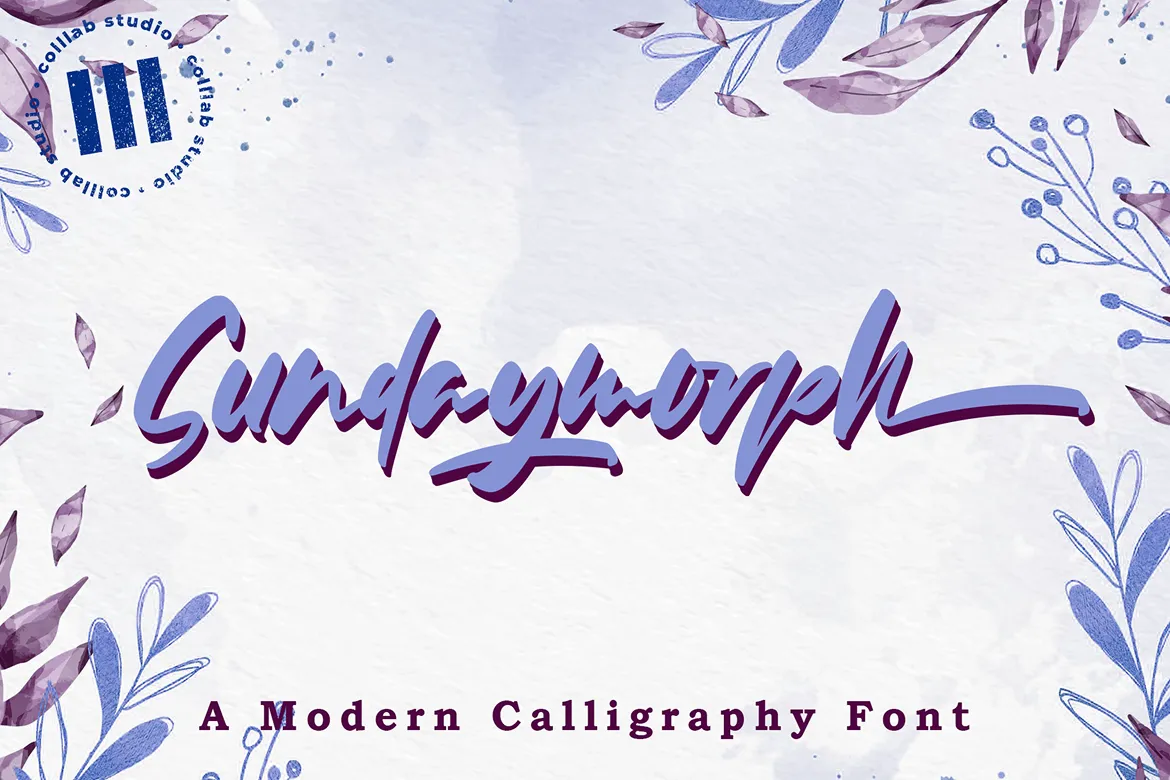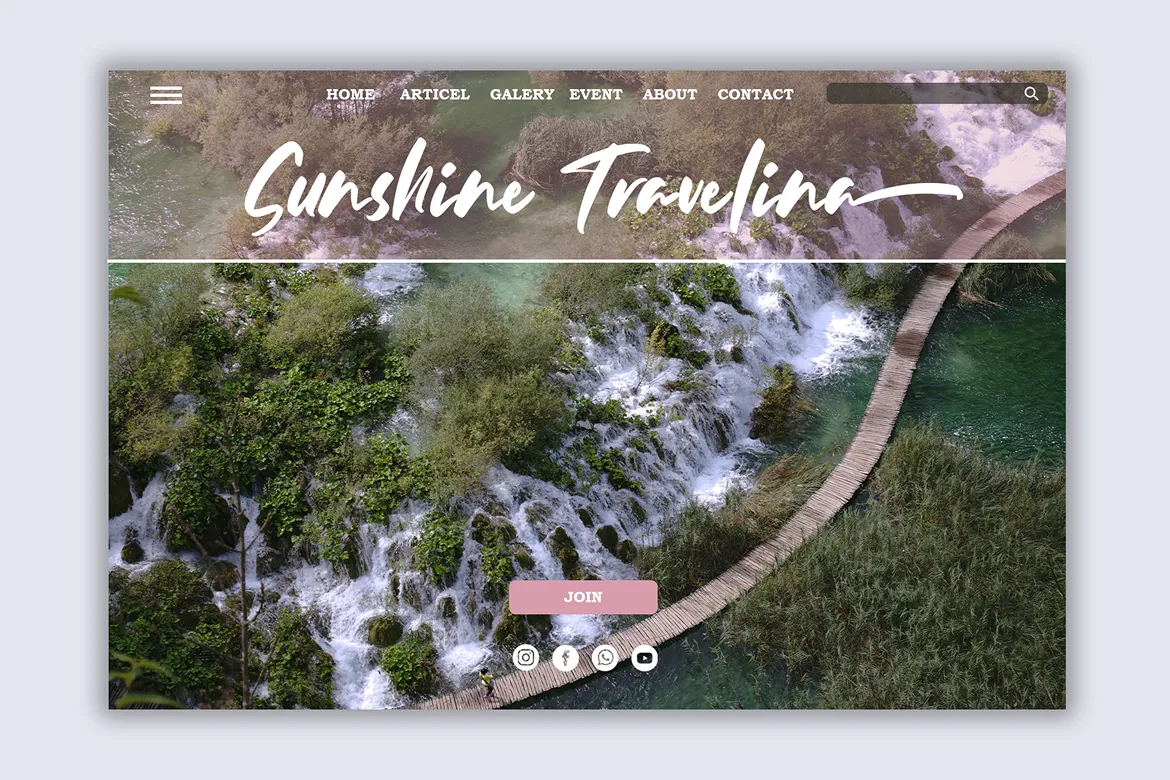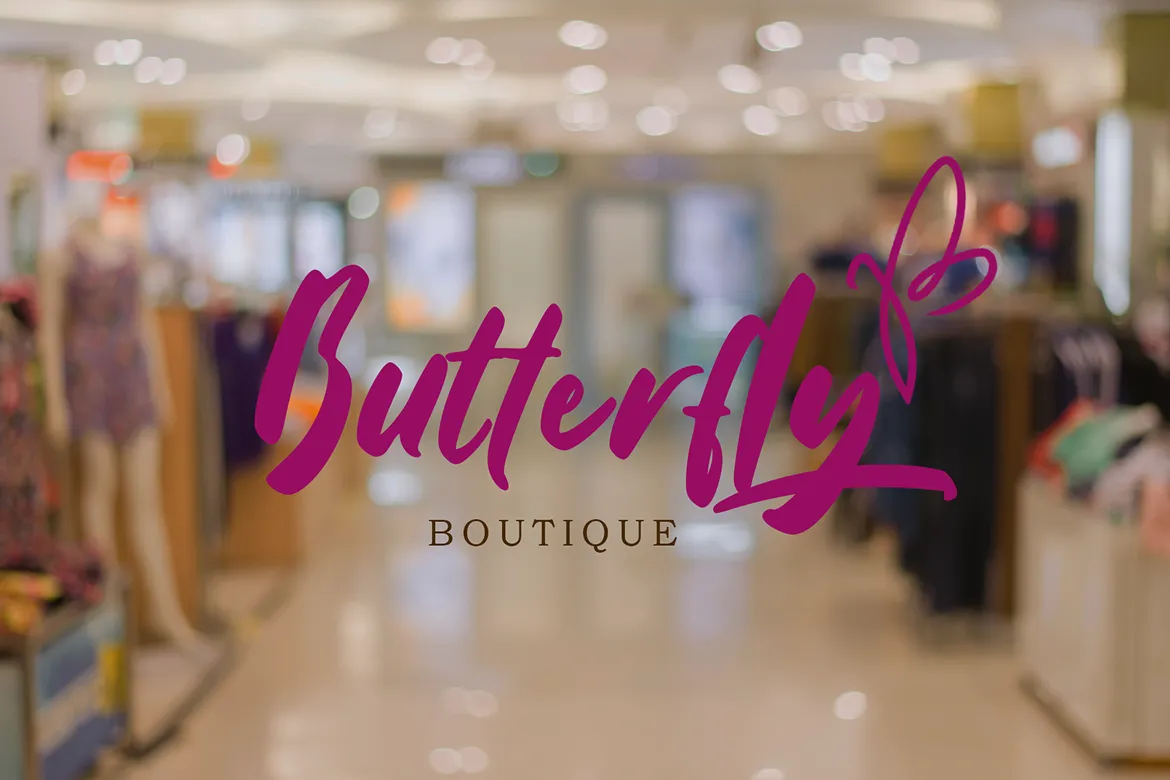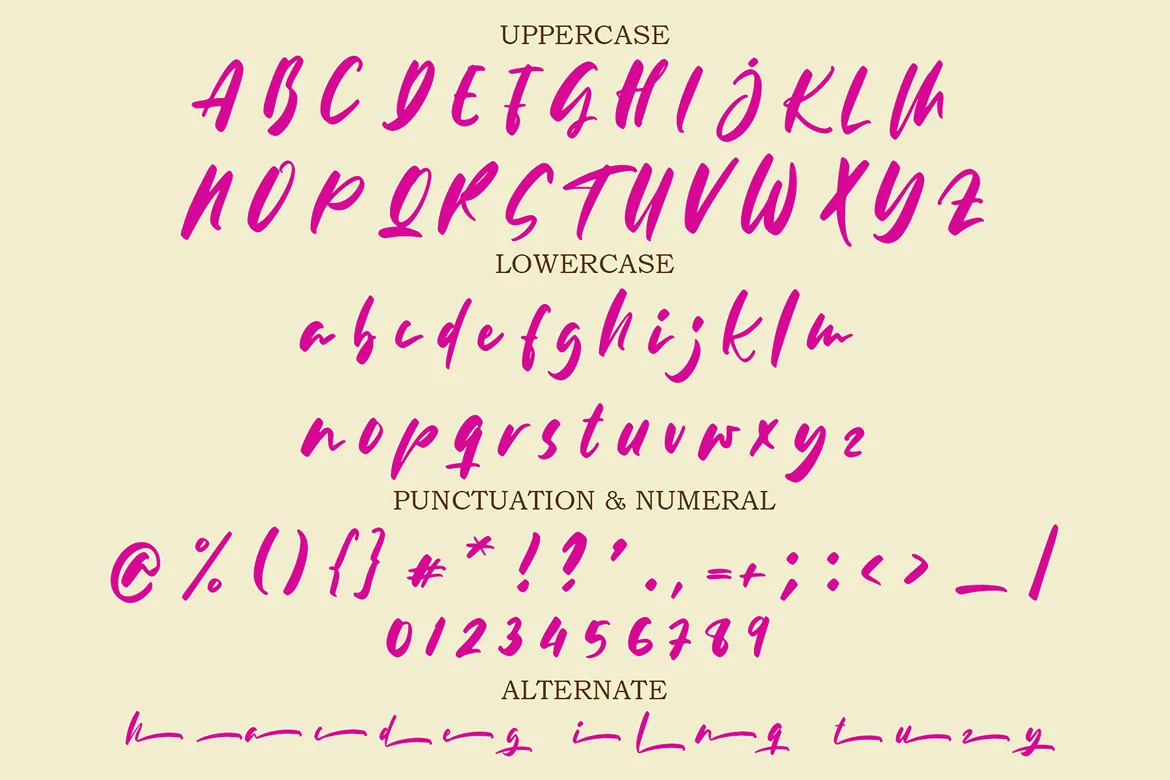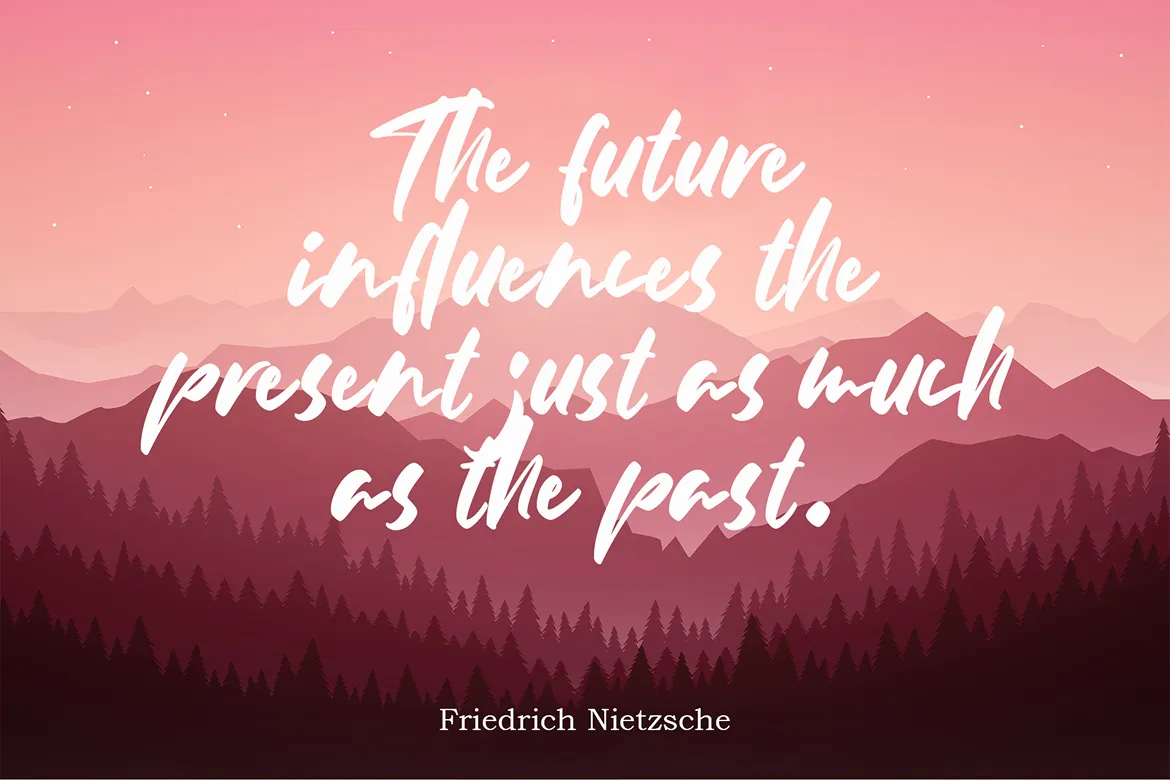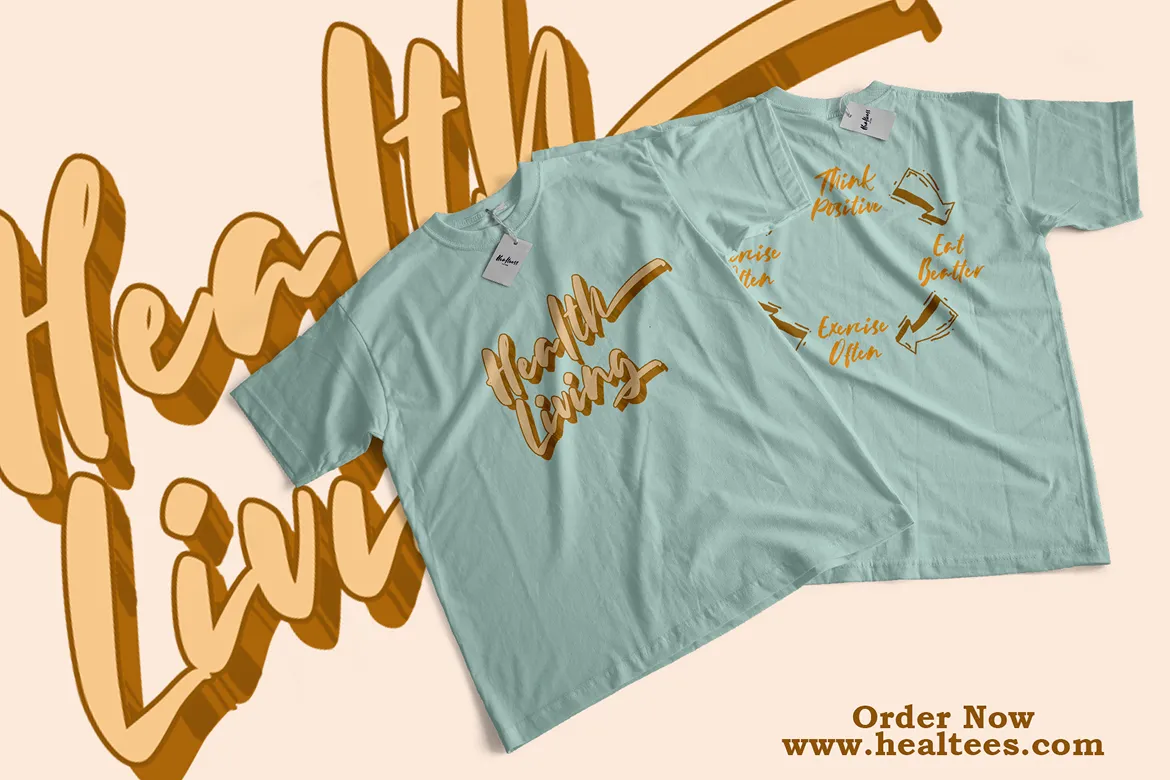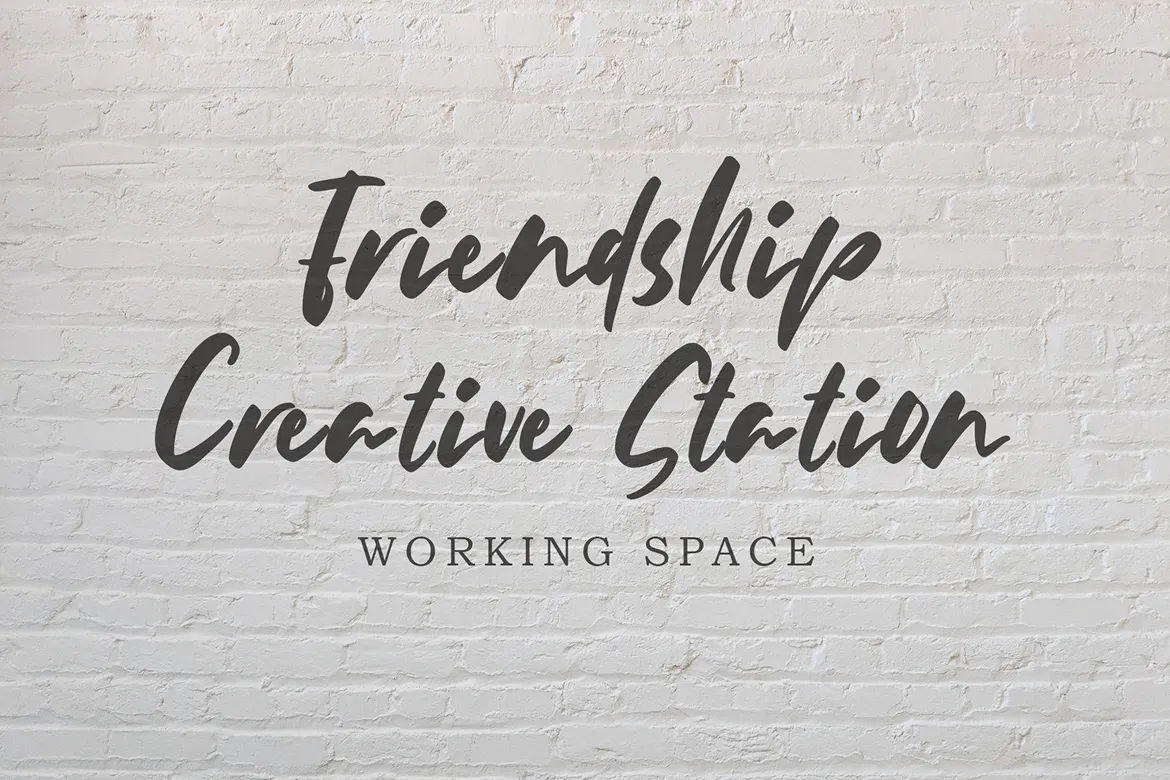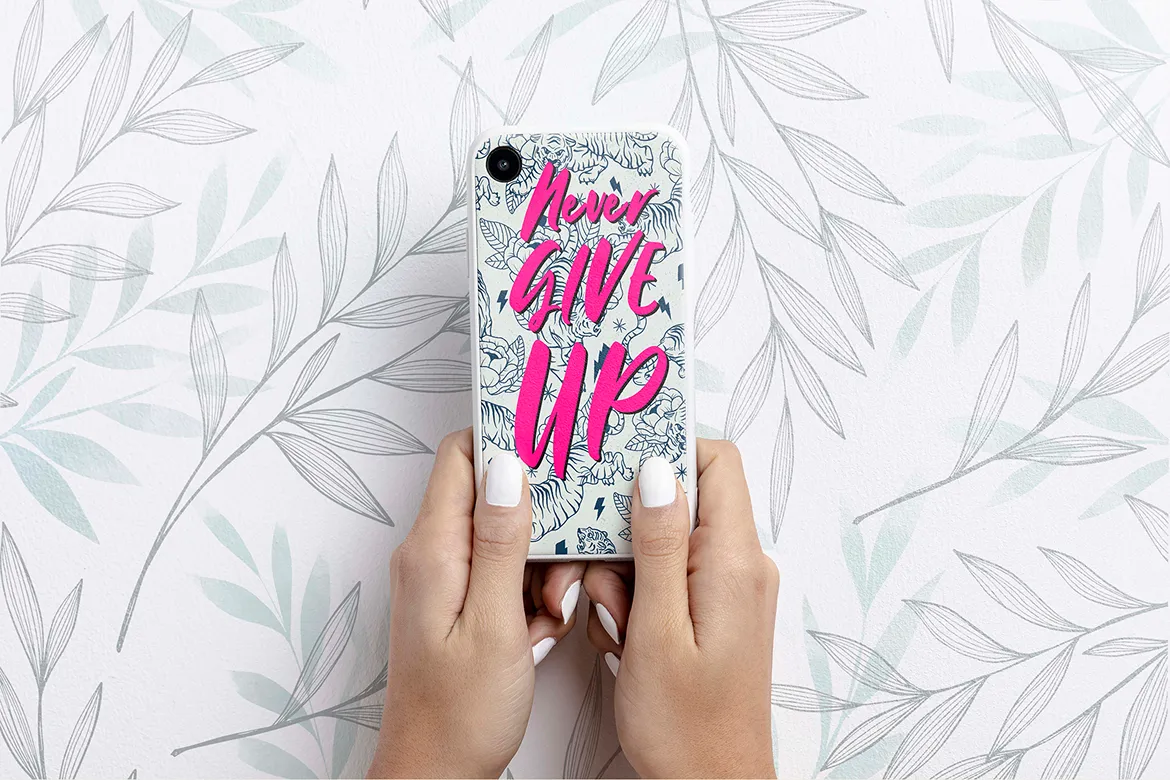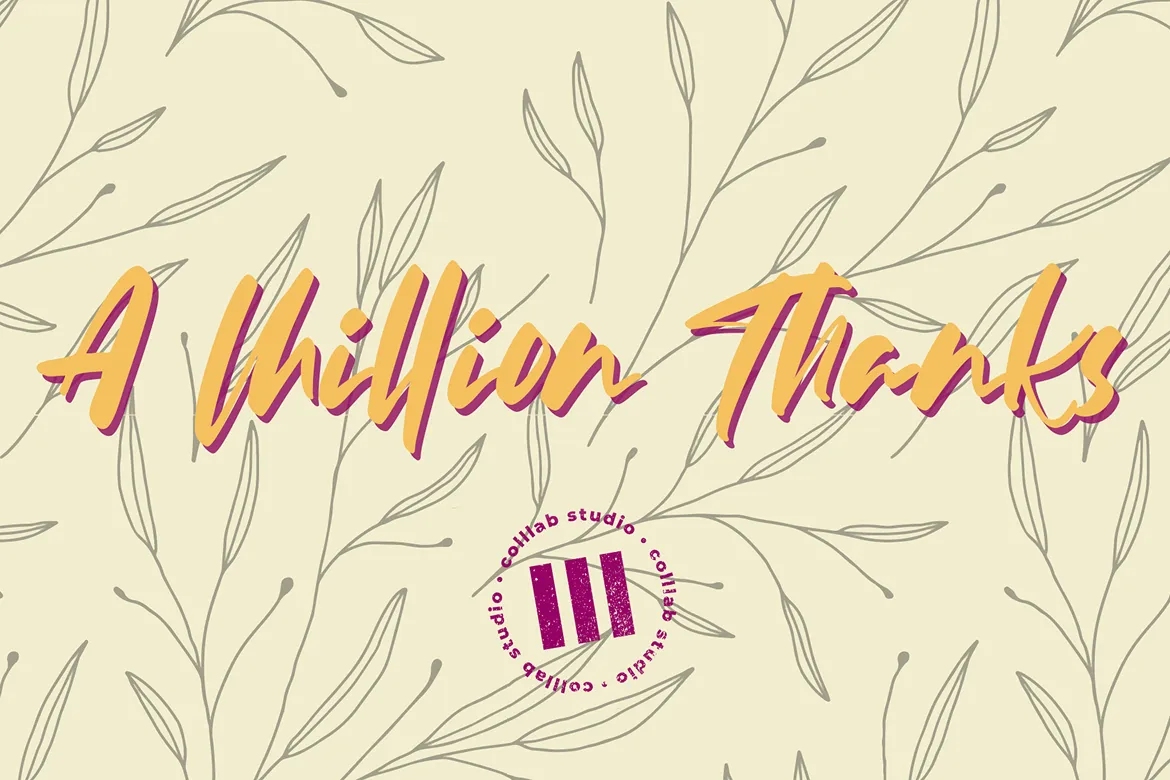
Sundaymorph is a modern handwritten script font designed with calligraphic flair, decorative characters, and a natural irregular baseline. Its trendy and feminine strokes bring elegance and personality to any project, from handwritten quotes to stylish branding. Ideal for product packaging, websites, social media graphics, and invitations, Sundaymorph delivers both creativity and charm in every curve.
Inspiration Behind the Font
Sundaymorph was inspired by the relaxed elegance of weekend journaling and handwritten notes. It reflects spontaneity and freedom while keeping a refined and polished feel, perfect for expressive, creative designs.
Key Features
Full uppercase & lowercase characters
Numbers & punctuation
Natural ligatures (ee, ii, ff, and more)
Alternate glyphs & decorative swashes
Multilingual support